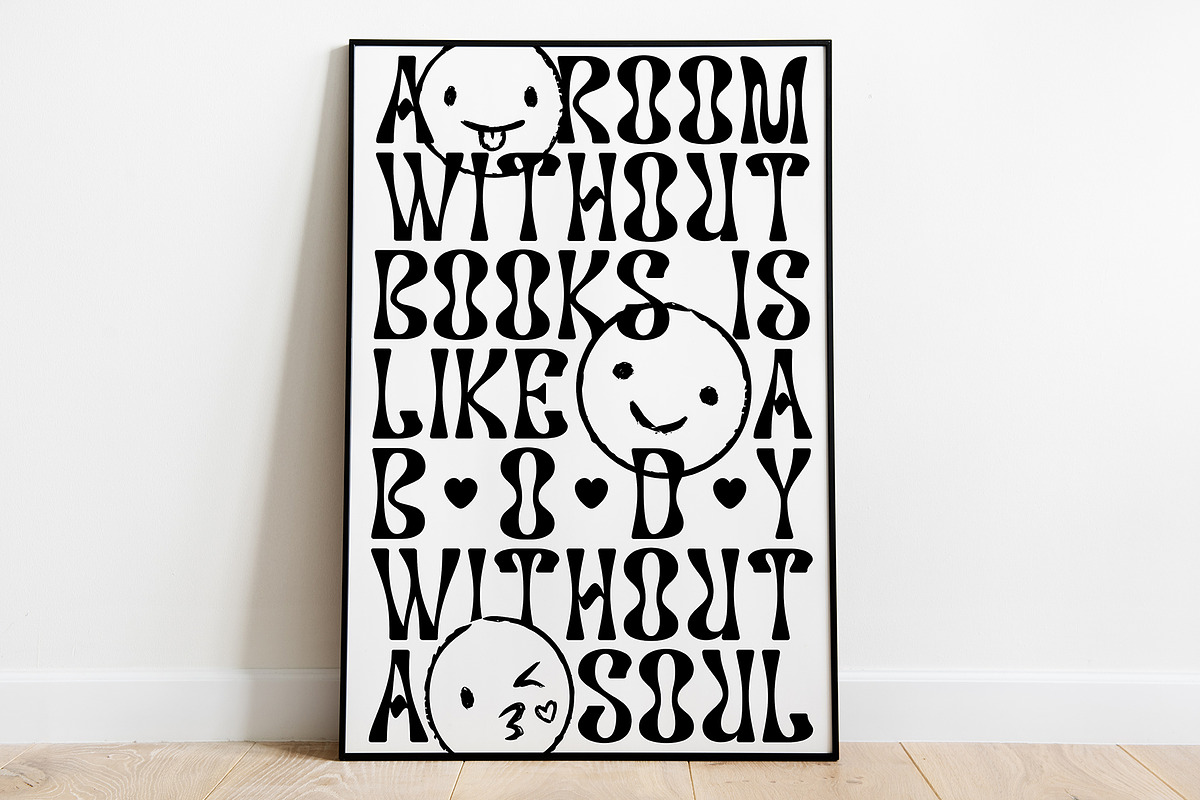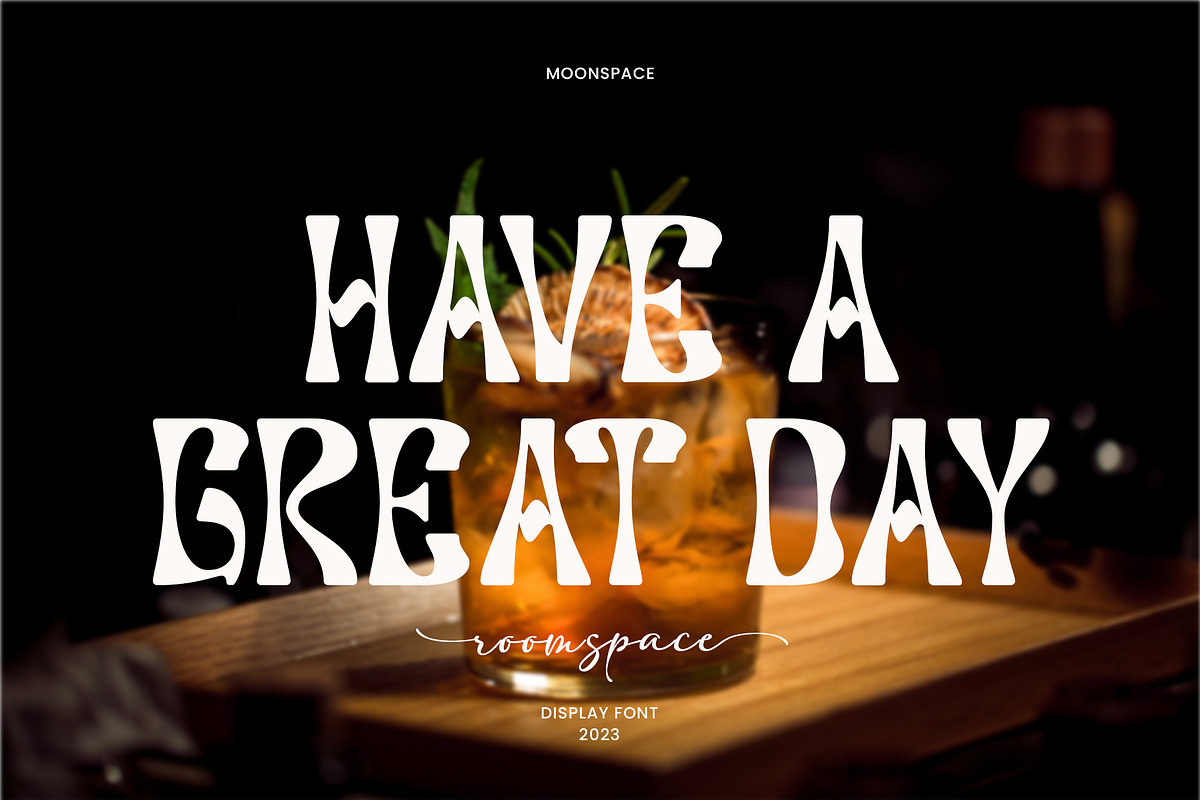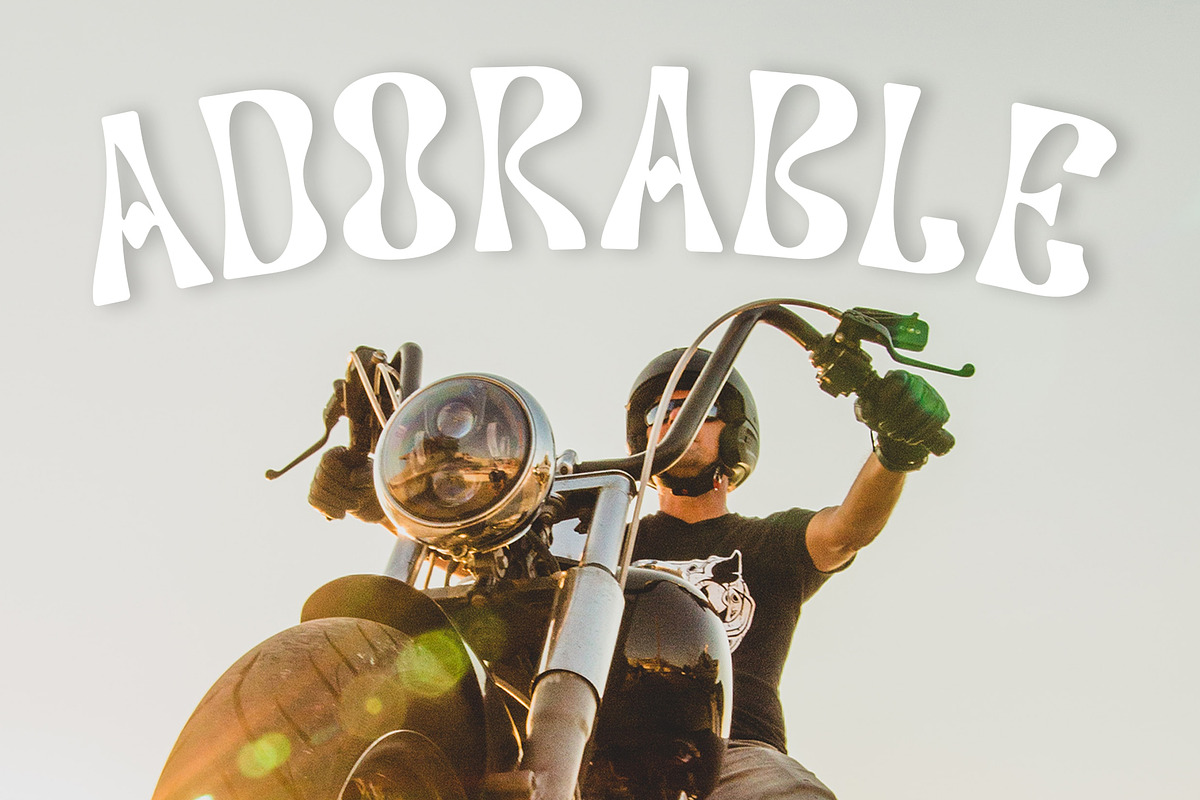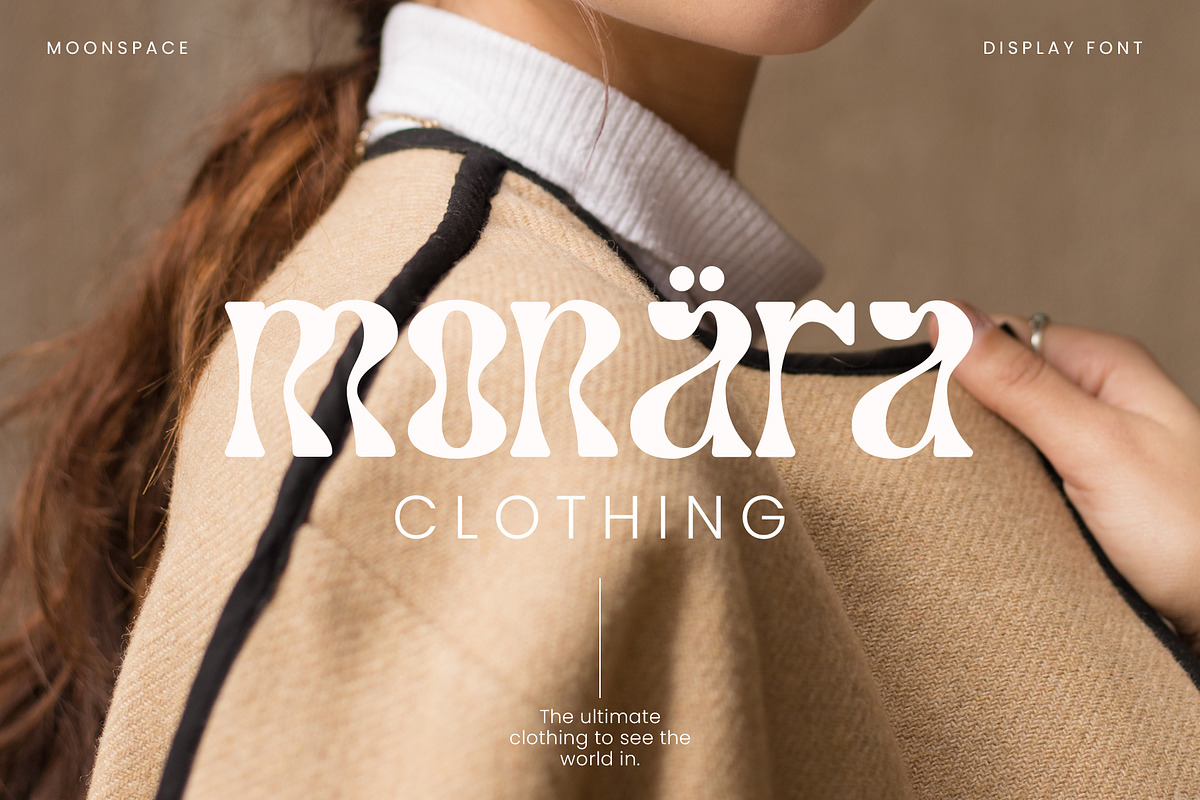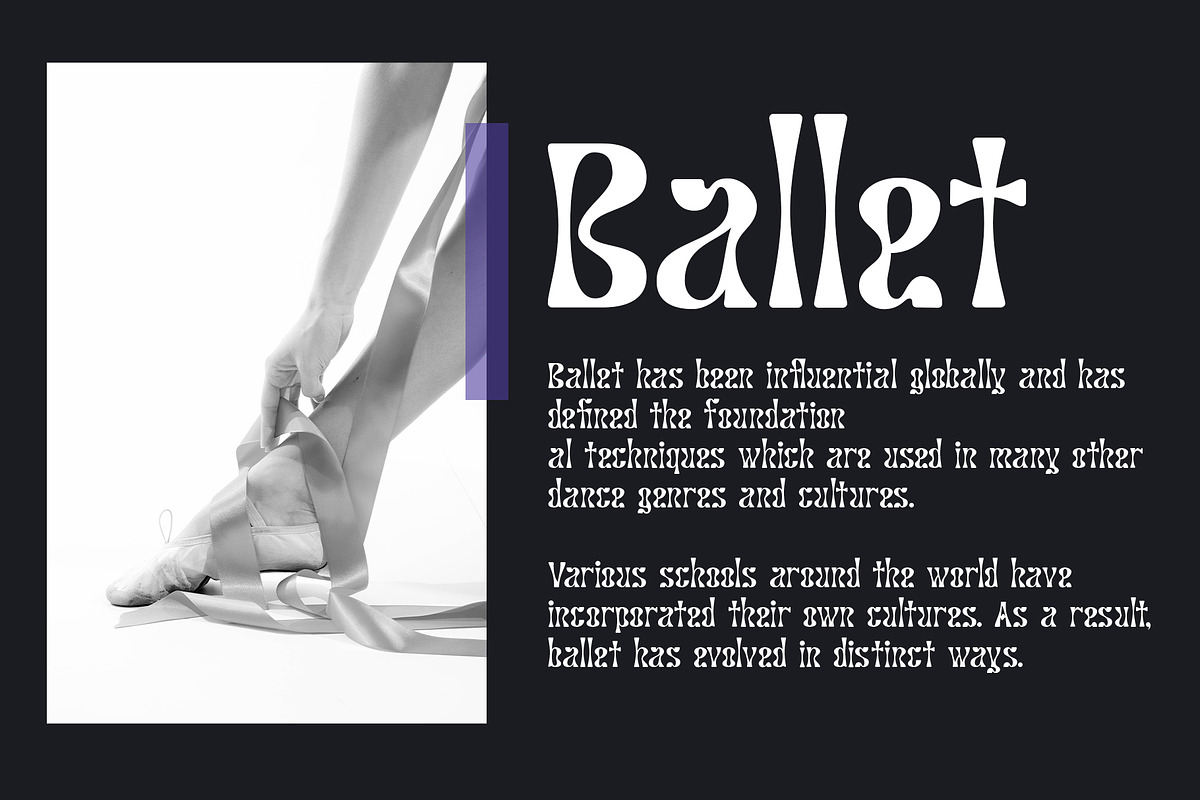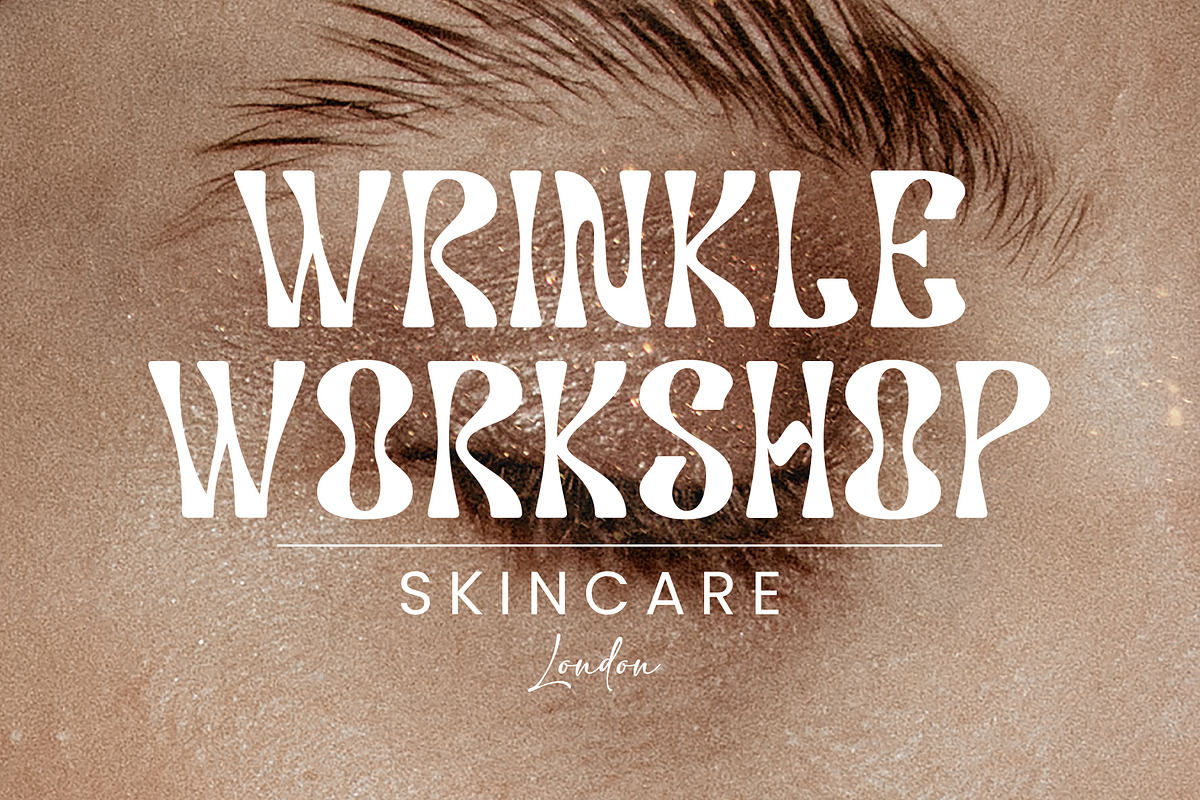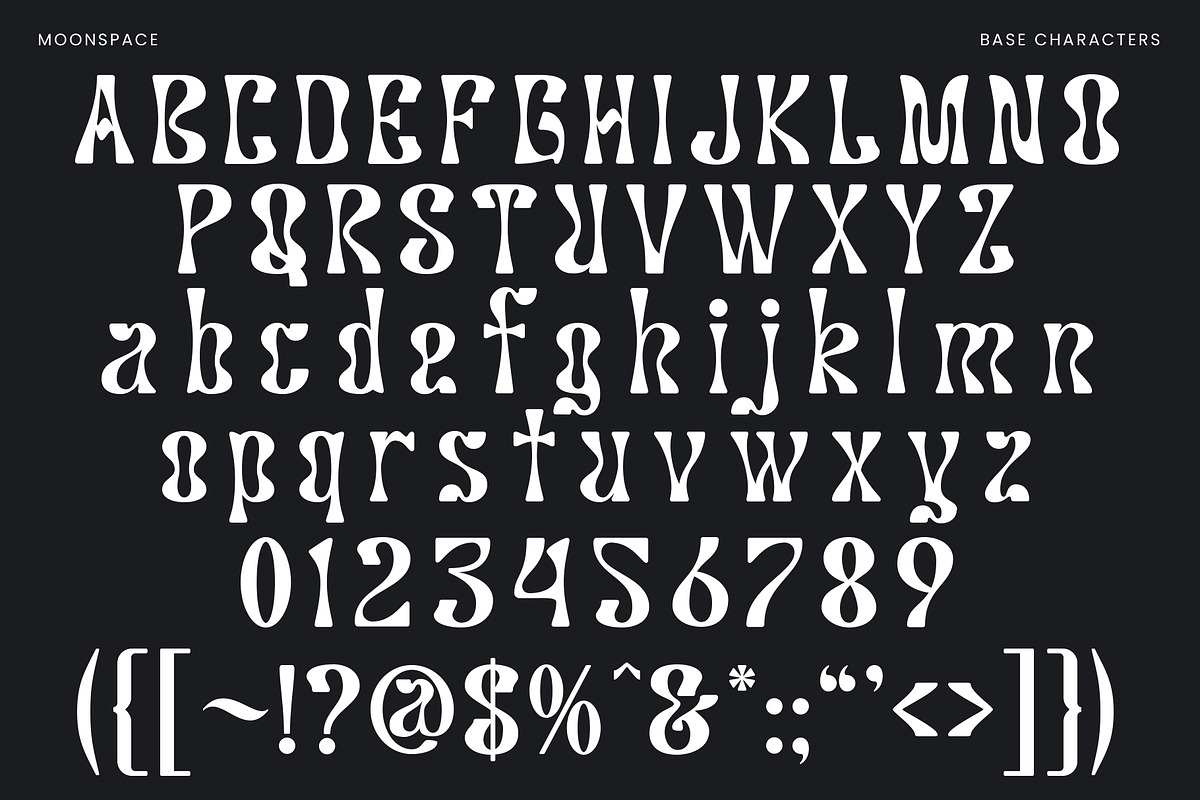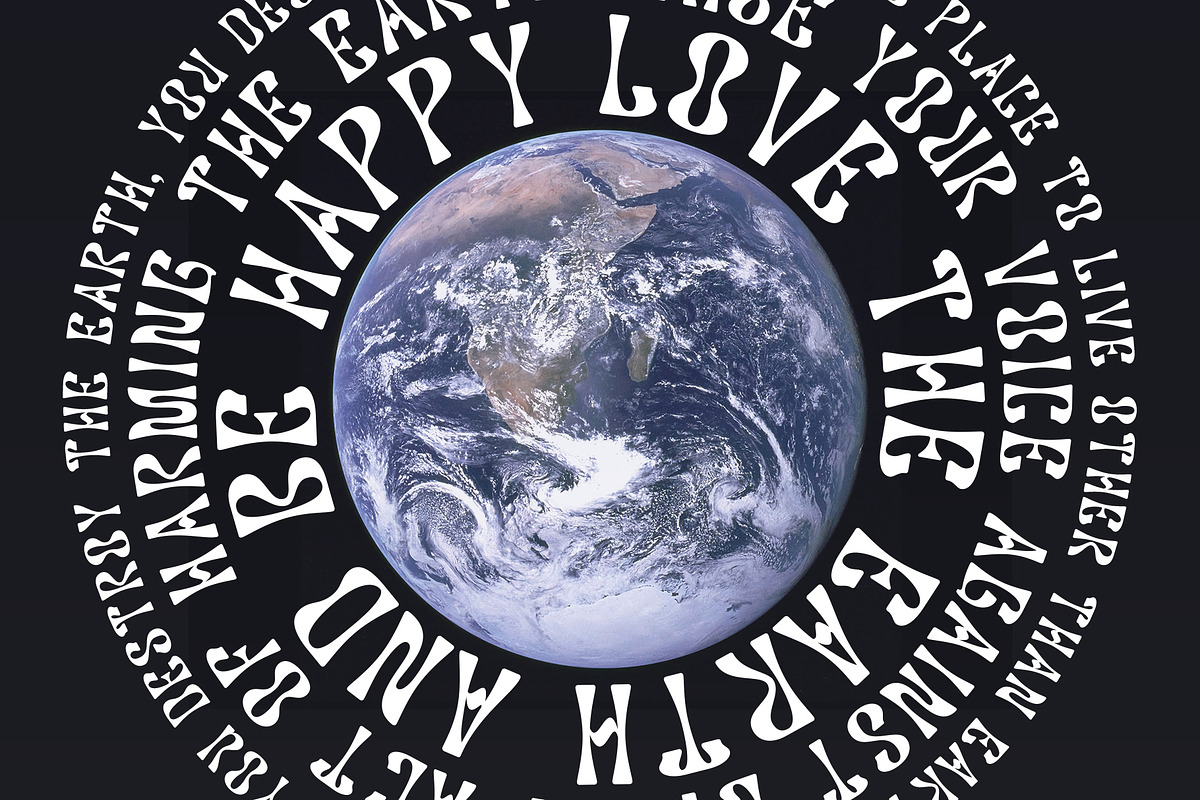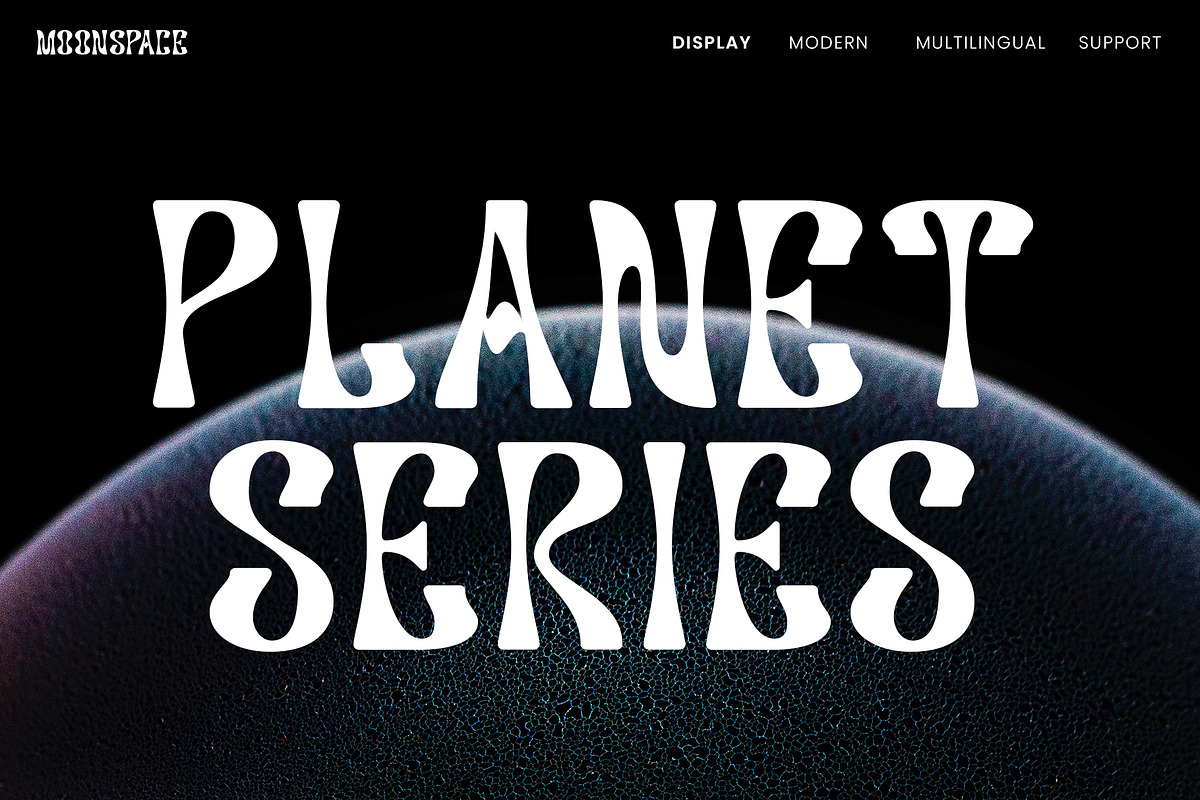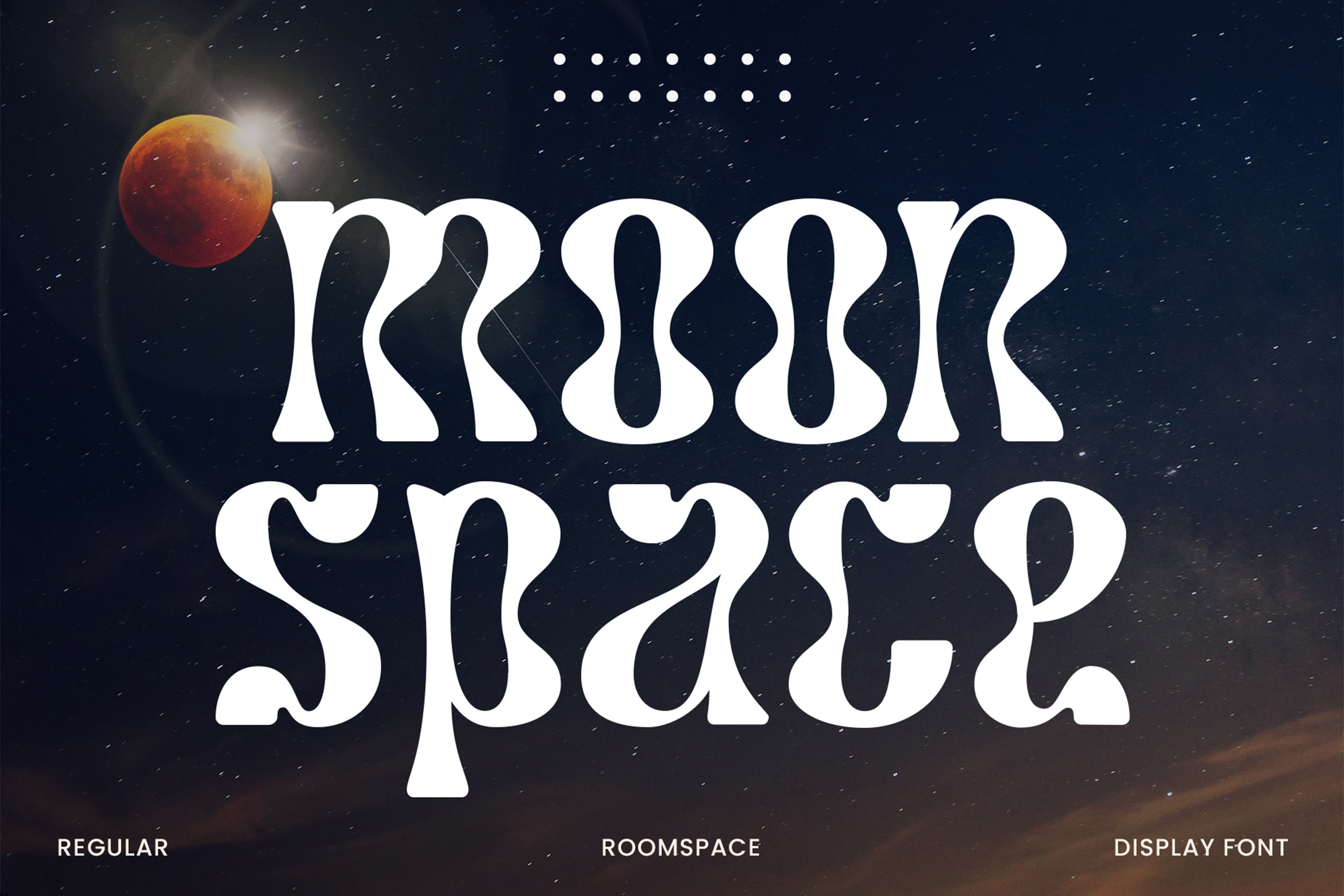
moonspace | Round Display Font
Moonspace is a unique display sans-serif font with a captivating wave-like character on each letter. Despite its slightly taller height, this font remains highly legible and suitable for a wide range of designs.
With its distinctive design that sets it apart from other sans-serif fonts, Moonspace adds an artistic touch to your designs. It's perfect for use on posters, magazines, brochures, and other creative projects.
Crafted with precision and balanced letter proportions, Moonspace delivers a professional and eye-catching look. It's suitable for use in a variety of designs, from modern to classic.